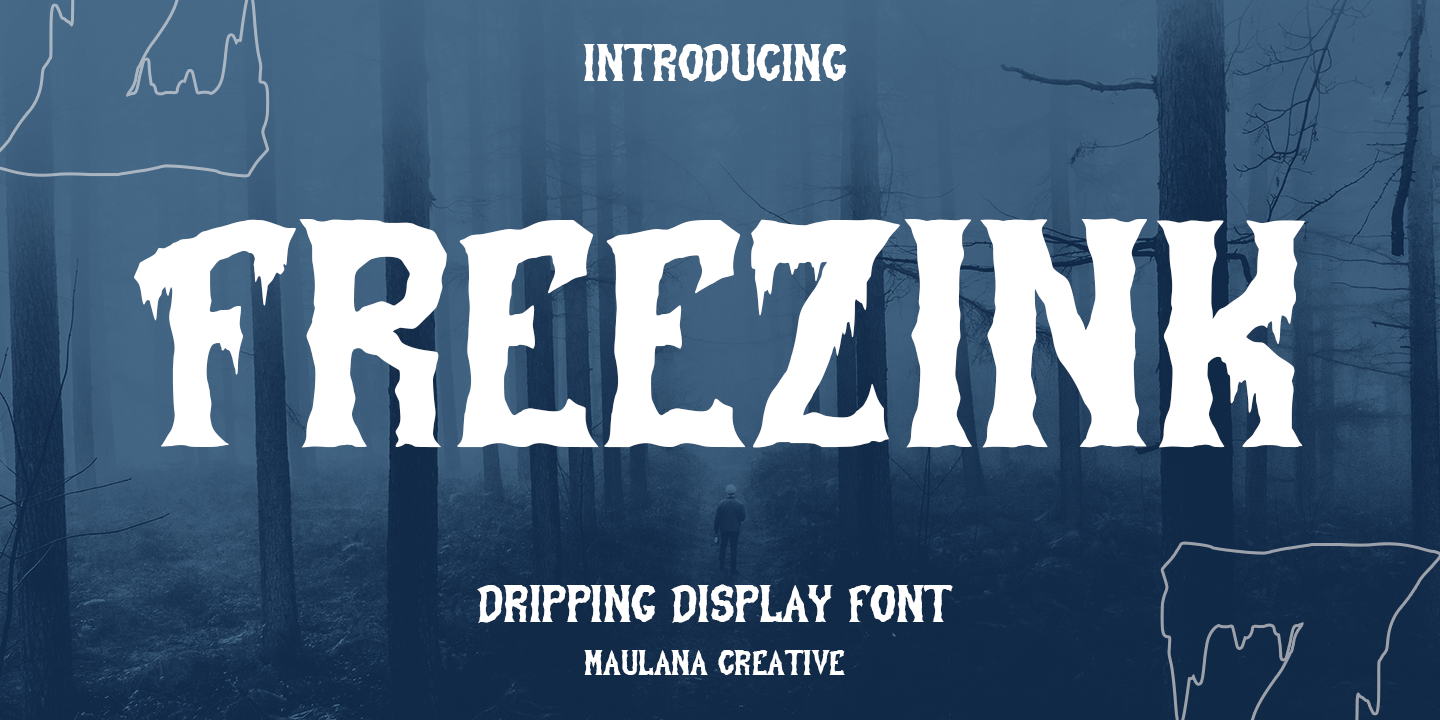
If you're looking for a bold, edgy display typeface with a grungy, distressed texture, Freezink Font Free Download is the perfect choice for your creative projects. This eye-catching font features rough, ink-splattered letterforms that evoke a raw, rebellious vibe, making it ideal for band posters, album covers, streetwear branding, skate culture designs, and promotional materials that need an urban, gritty aesthetic. Its bold presence ensures your message stands out with attitude.
Freezink Font offers strong readability while maintaining its unique, distressed character. It includes multilingual support and a variety of glyphs, giving designers flexibility to create powerful, customized typography. Whether you're working on music event graphics or bold branding campaigns, this font brings raw energy and creative edge to your work.